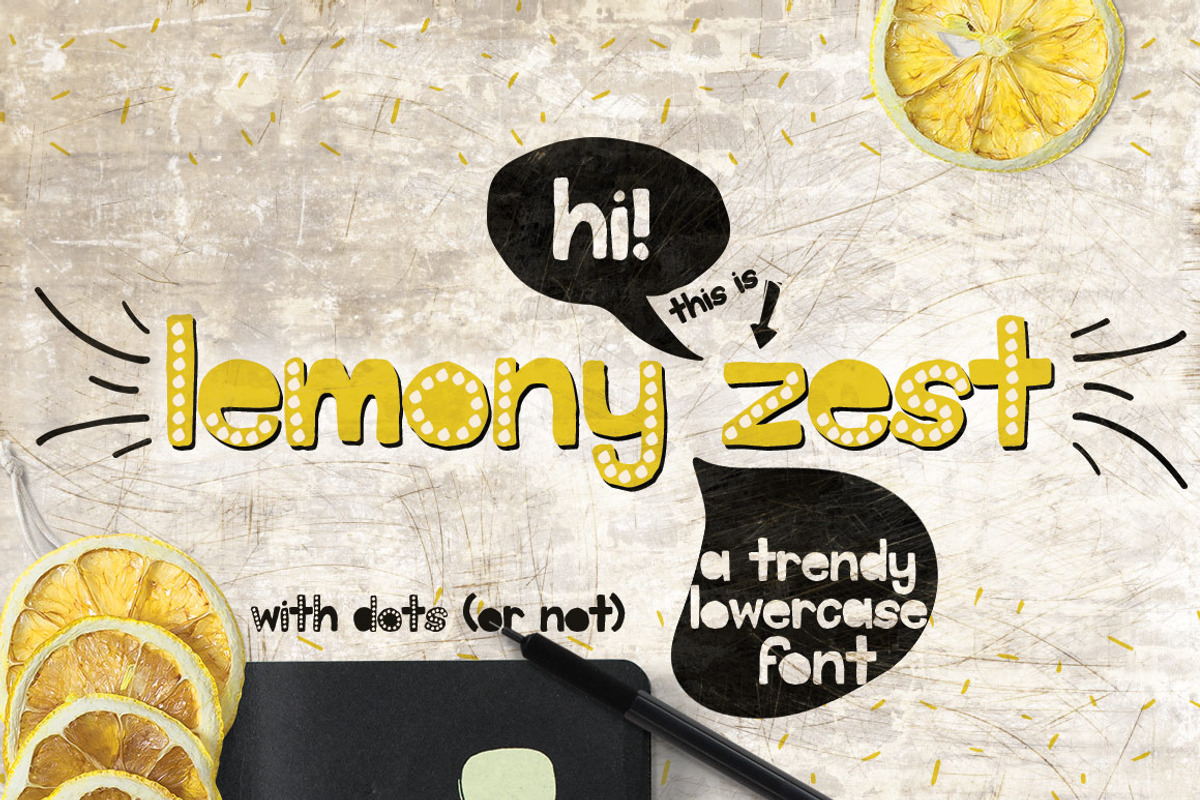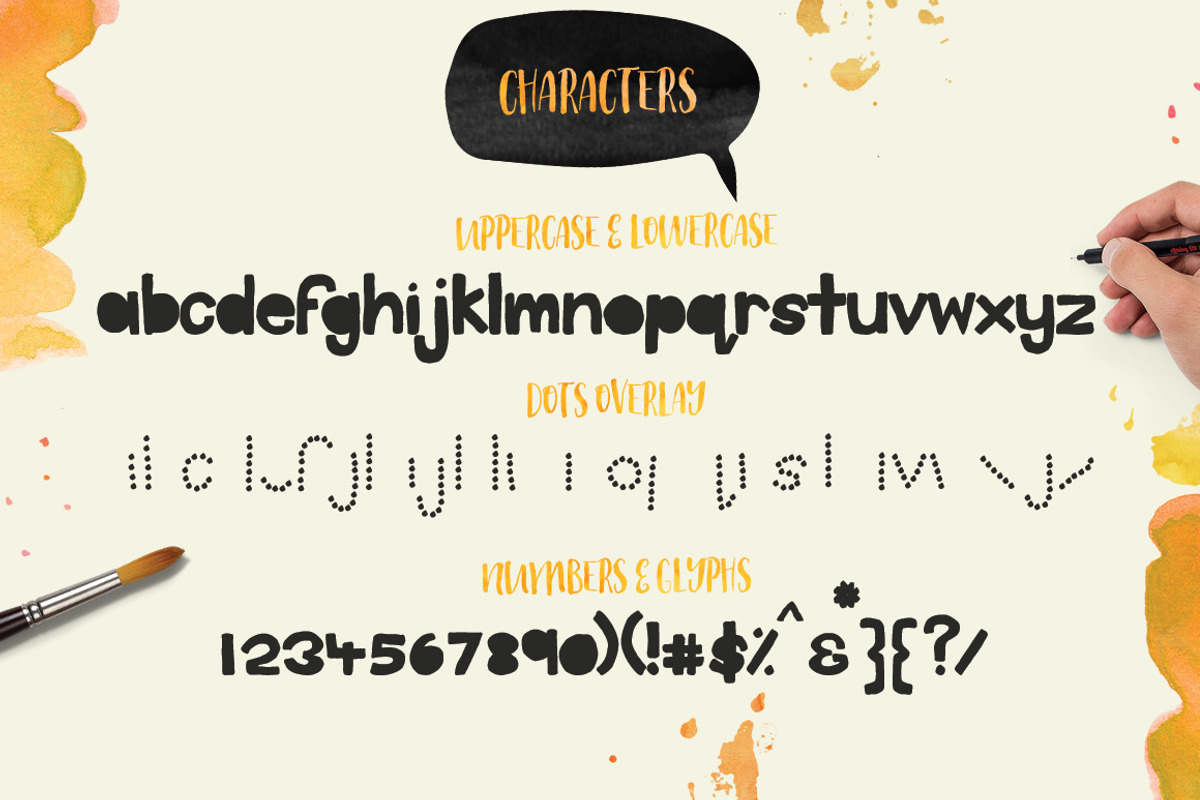
Lemony Zest Font Typeface
Lemony Zest Font Typeface by Creativeqube Design is a font selected for branding, posters, packaging, typography.
- Please welcome - Lemony Zest - a cool hand drawn lowercase font with an extra overlay font for added feature.
Why Lemony Zest Font Typeface is worth a look
Lemony Zest Font Typeface by Creativeqube Design fits naturally into Branding, posters, packaging, typography.